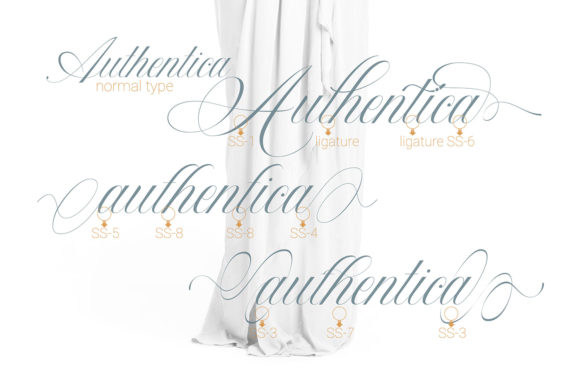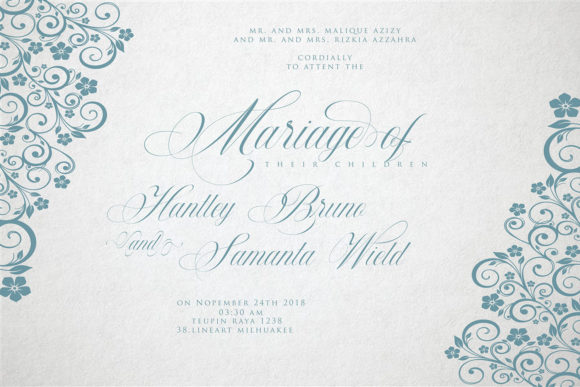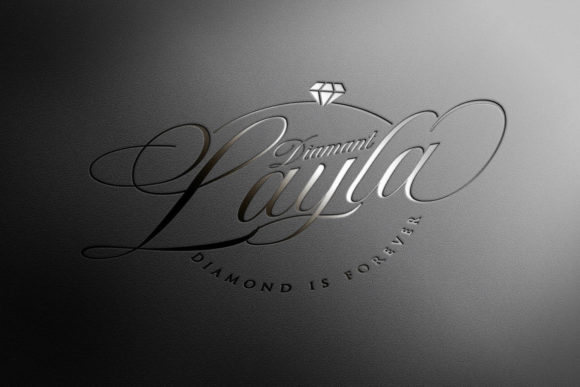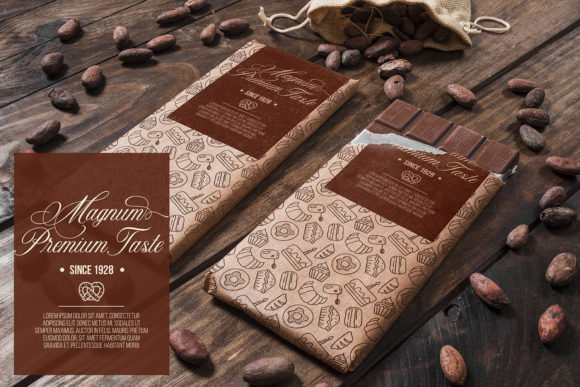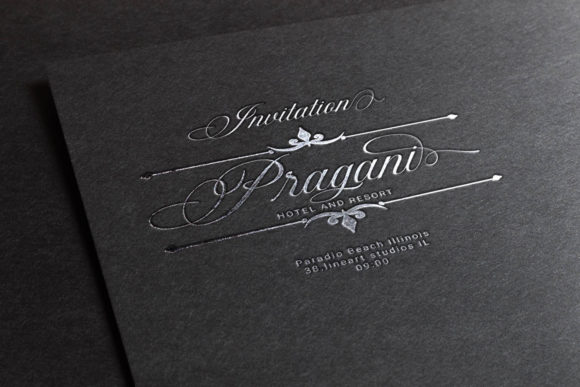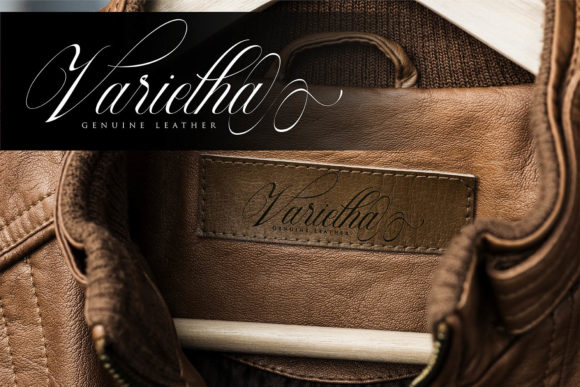
Athena Font: A Majestic Calligraphy Script Inspired by Greek Mythology
In the realm of typography, few fonts capture the essence of elegance and sophistication as beautifully as the Athena font. This stunning calligraphy script draws inspiration from Athene, the revered goddess of wisdom, courage, and the arts in Greek mythology. With its intricate details and modern flair, Athena font is poised to elevate your designs to new heights of style and glamour.
The Mythological Inspiration Behind Athena Font
Athene, often referred to simply as Athena, is one of the most multifaceted deities in Greek mythology. She is celebrated as the goddess of wisdom, courage, inspiration, mathematics, strength, strategy, and the arts. Her domains also encompass crafts and skill, making her a patron of creativity and intellect. The Athena font, with its elegant and refined aesthetic, pays homage to these diverse attributes, embodying the goddess’s spirit of sophistication and excellence.
Design Characteristics of Athena Font
The Athena font is characterized by its elegant letters, meticulously designed with a modern touch. Each character is crafted with high attention to detail, ensuring that the font exudes a sense of luxury and refinement. The calligraphy script flows gracefully, with subtle variations in line width and fluid connections between letters, creating a harmonious and visually appealing effect.
Key Features of Athena Font
- Elegant Calligraphy Script: Athena font boasts a beautiful calligraphy script that adds a touch of sophistication to any design.
- Modern Touch: Despite its classic inspiration, the font incorporates modern elements, making it versatile for a wide range of design applications.
- High Detail: The font’s high level of detail ensures that it remains legible and impactful, even at various sizes.
- Luxurious Feel: Athena font is designed to bring a sense of style, glamour, and luxury to your designs, making it perfect for high-end branding, packaging, and editorial projects.
Applications of Athena Font
The versatility of Athena font makes it suitable for a variety of design applications. Here are some of the ways you can use this beautiful font:
- Branding and Logo Design: The elegant and sophisticated nature of Athena font makes it an excellent choice for branding and logo design, especially for luxury brands.
- Editorial Design: Use Athena font to add a touch of glamour to your editorial projects, such as magazines, newspapers, and books.
- Packaging Design: The font’s luxurious feel makes it perfect for high-end product packaging, adding an extra layer of sophistication to your designs.
- Digital Media: Athena font can also be used in digital media, including website headers, social media graphics, and digital advertising.
Tips for Using Athena Font Effectively
Athena font is a magnificent calligraphy script that draws inspiration from the multifaceted goddess of Greek mythology. With its elegant letters, modern touch, and luxurious feel, this font is poised to elevate your designs to new heights of sophistication and style. Whether you’re a designer, crafter, or simply a typography enthusiast, Athena font offers endless possibilities for creative expression. Embrace the beauty and elegance of Athena font in your next design project and experience the transformative power of typography.